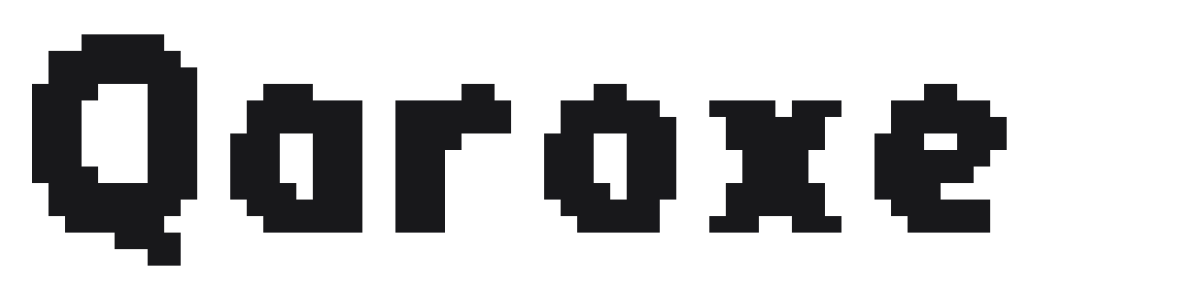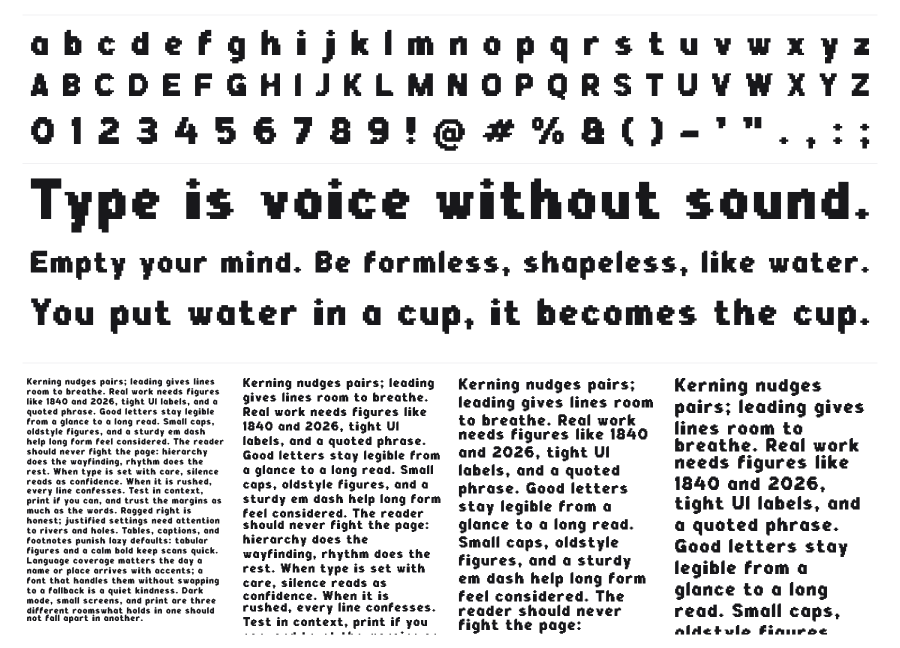
Qaroxe
Qaroxe is a bold bitmap pixel font with chunky square letterforms built on a coarse 8-bit grid. Slightly rounded corner pixels keep it from feeling too mechanical, giving it warmth within an otherwise hard digital structure. It fits right into gaming interfaces, retro-themed branding, and any context that wants to wear its pixel heritage proudly.